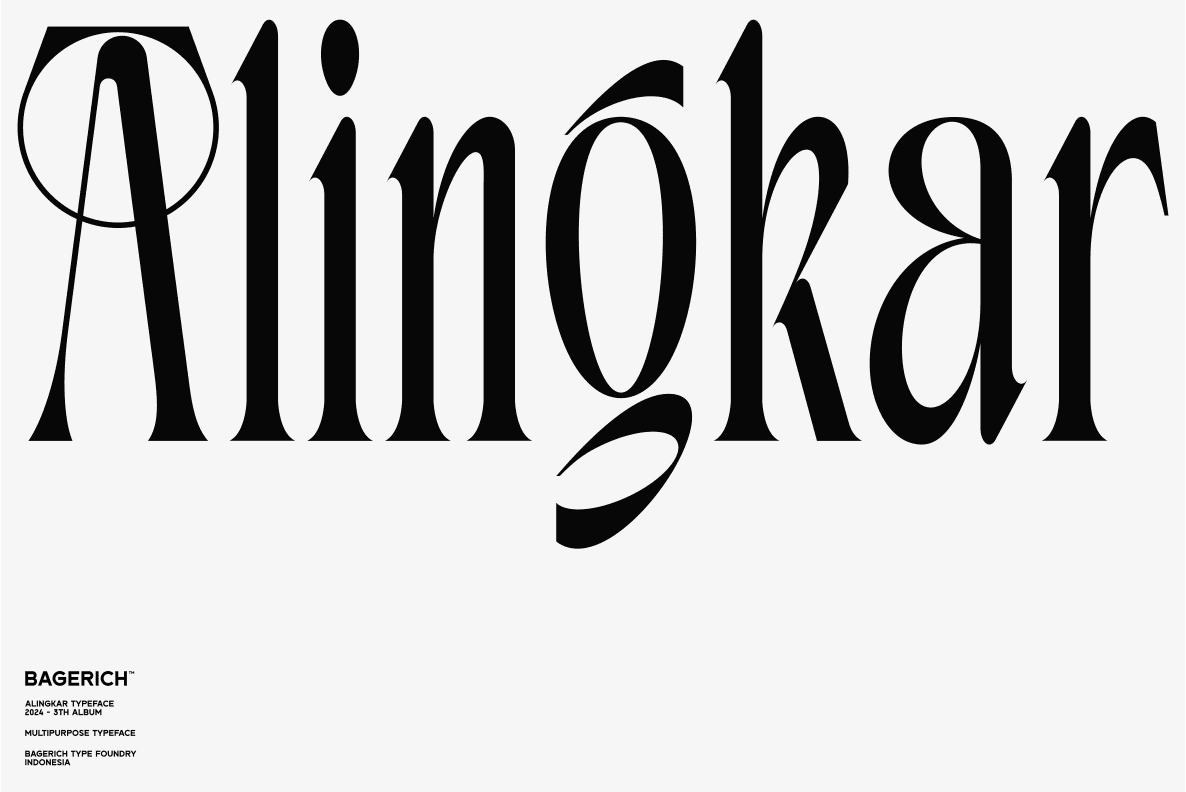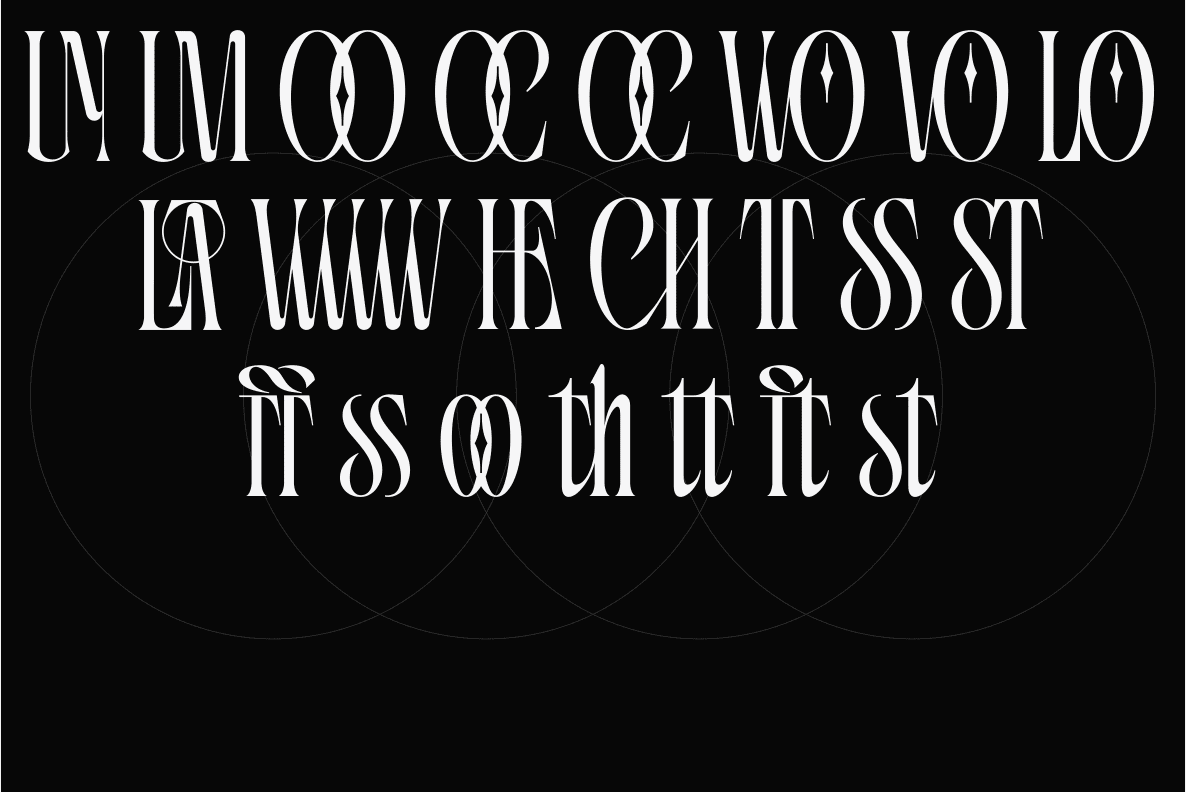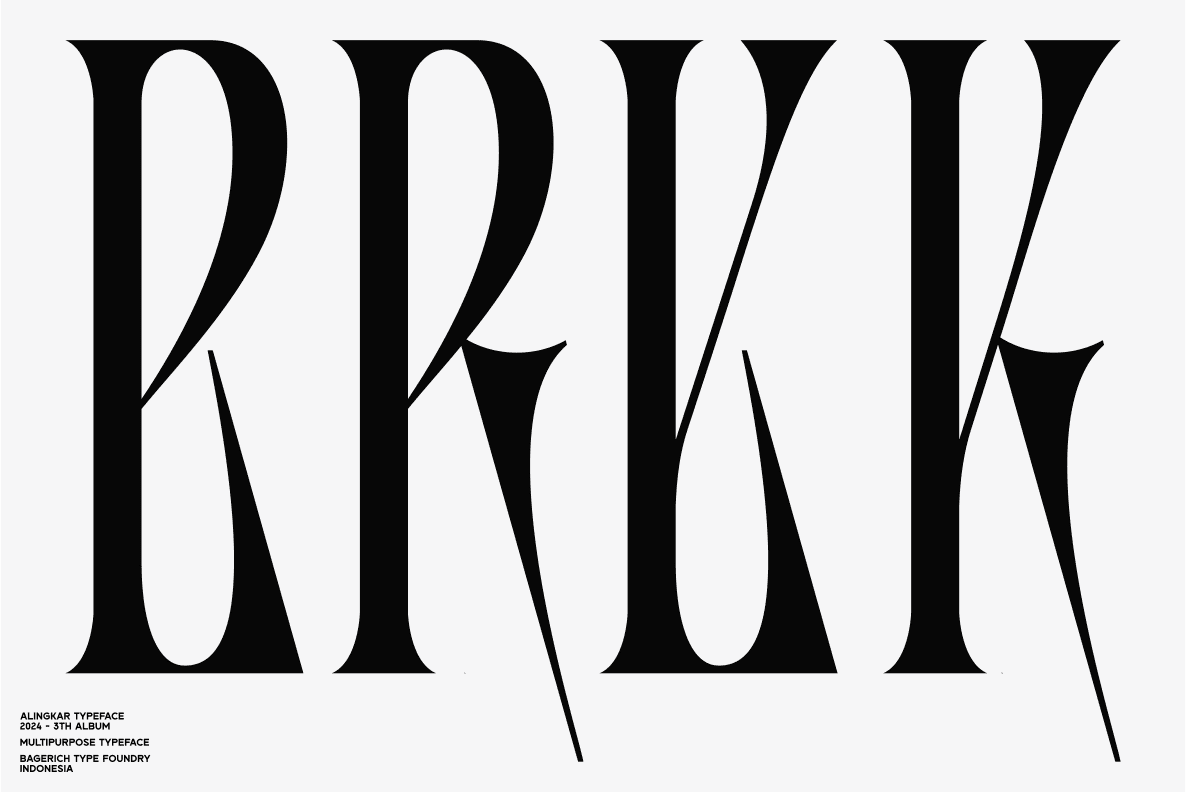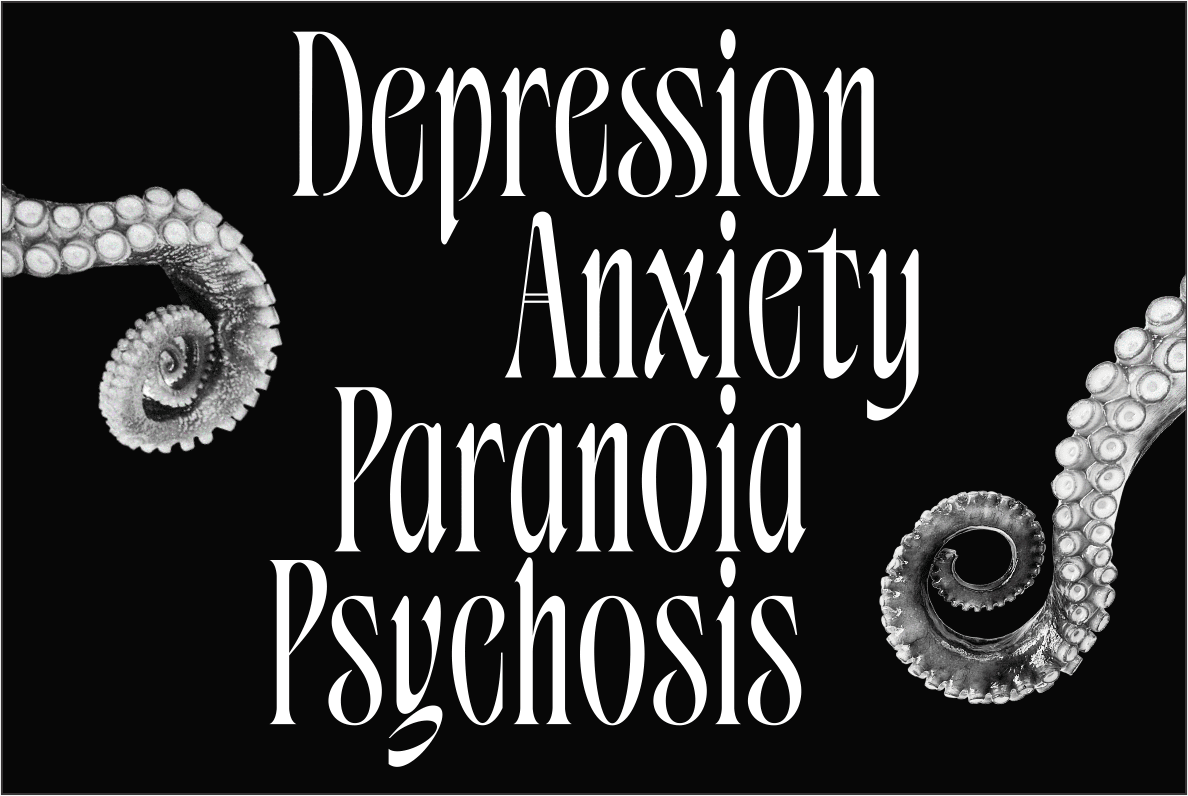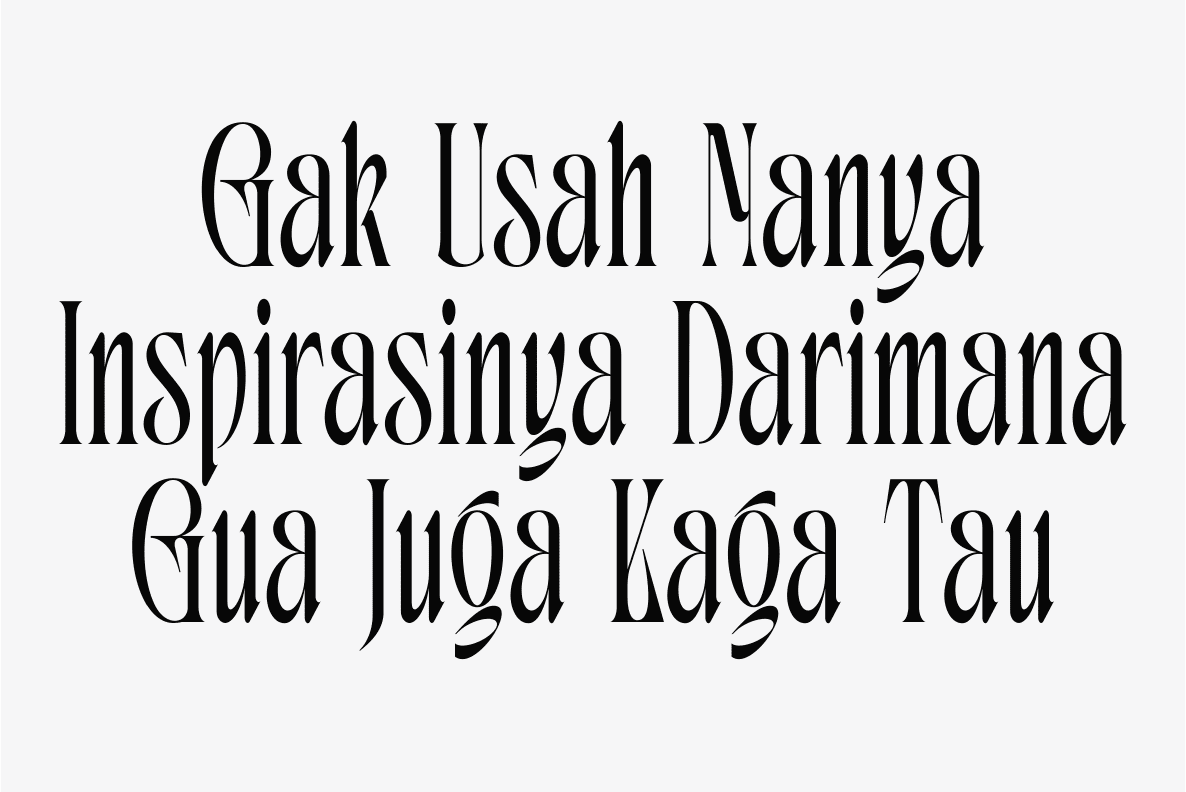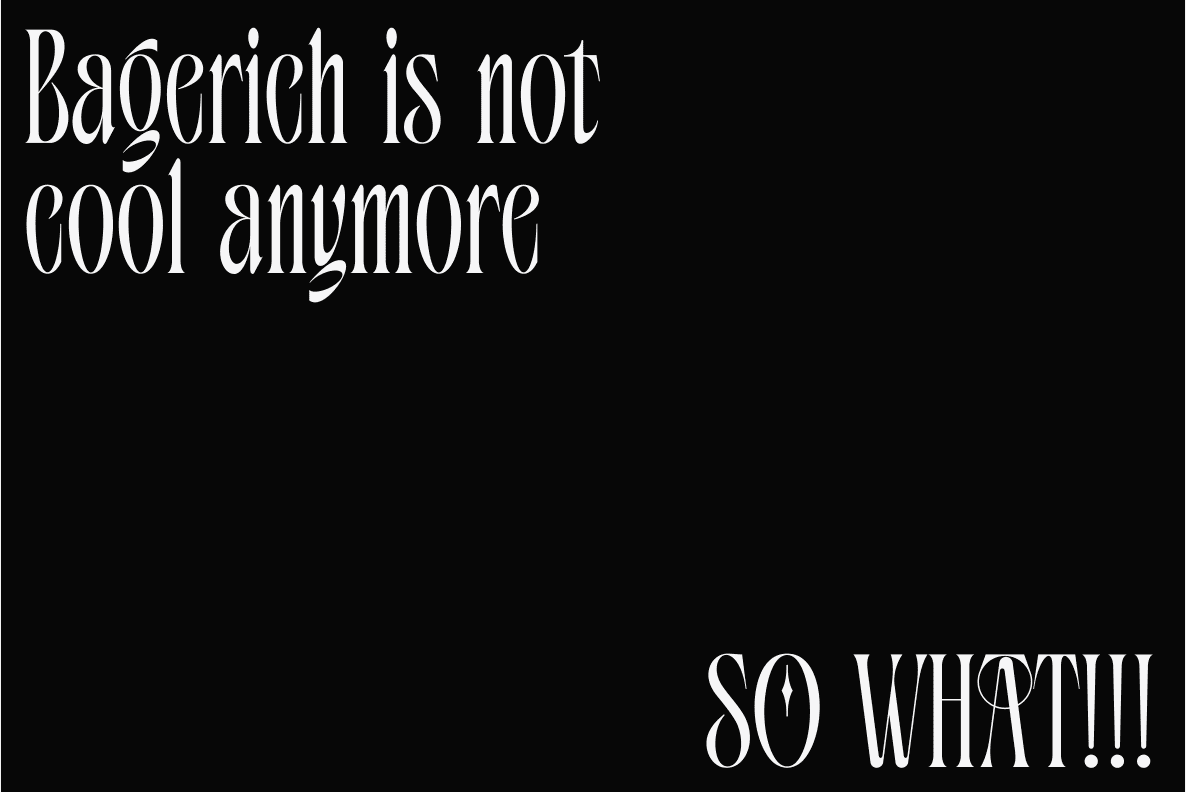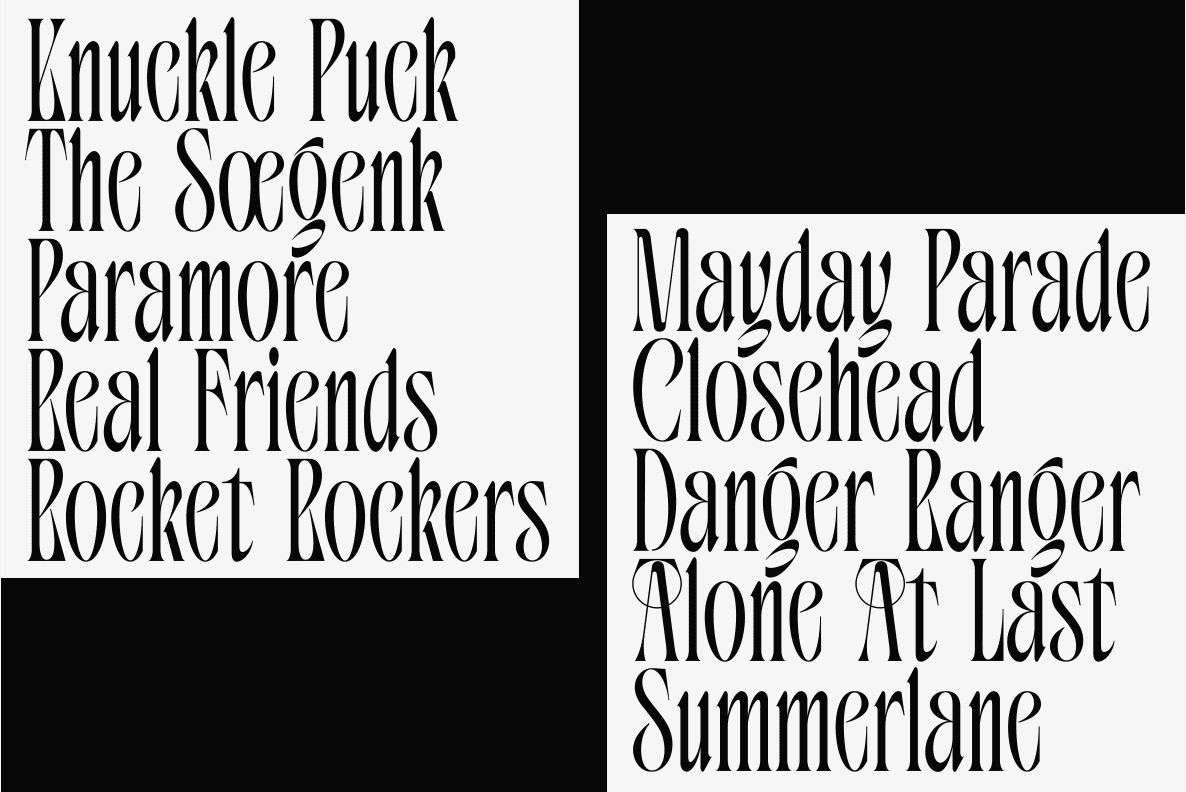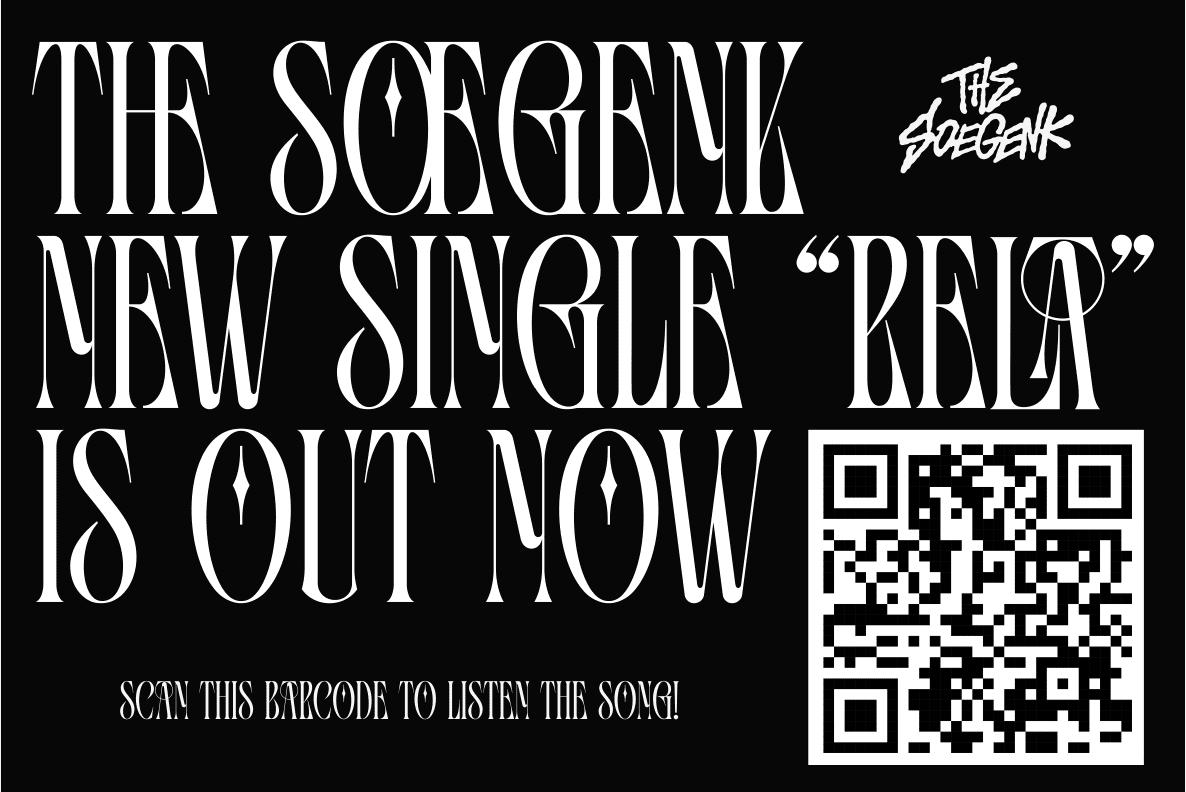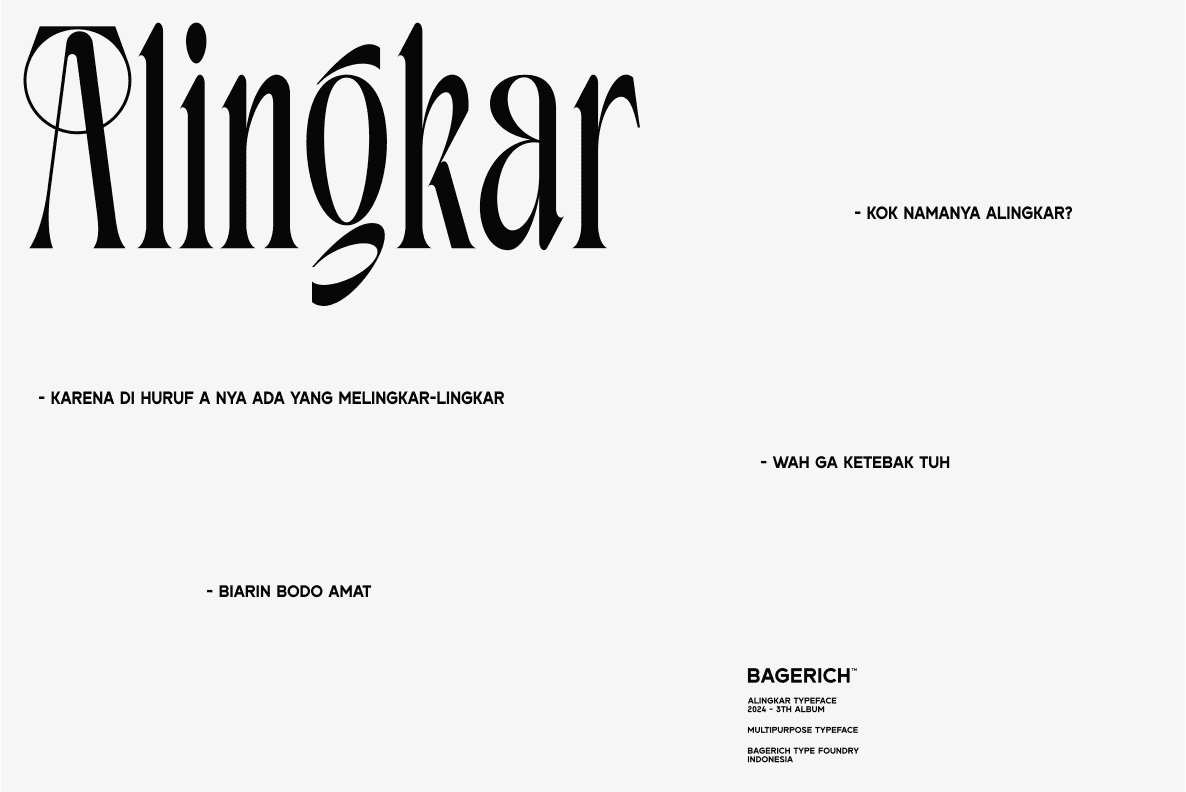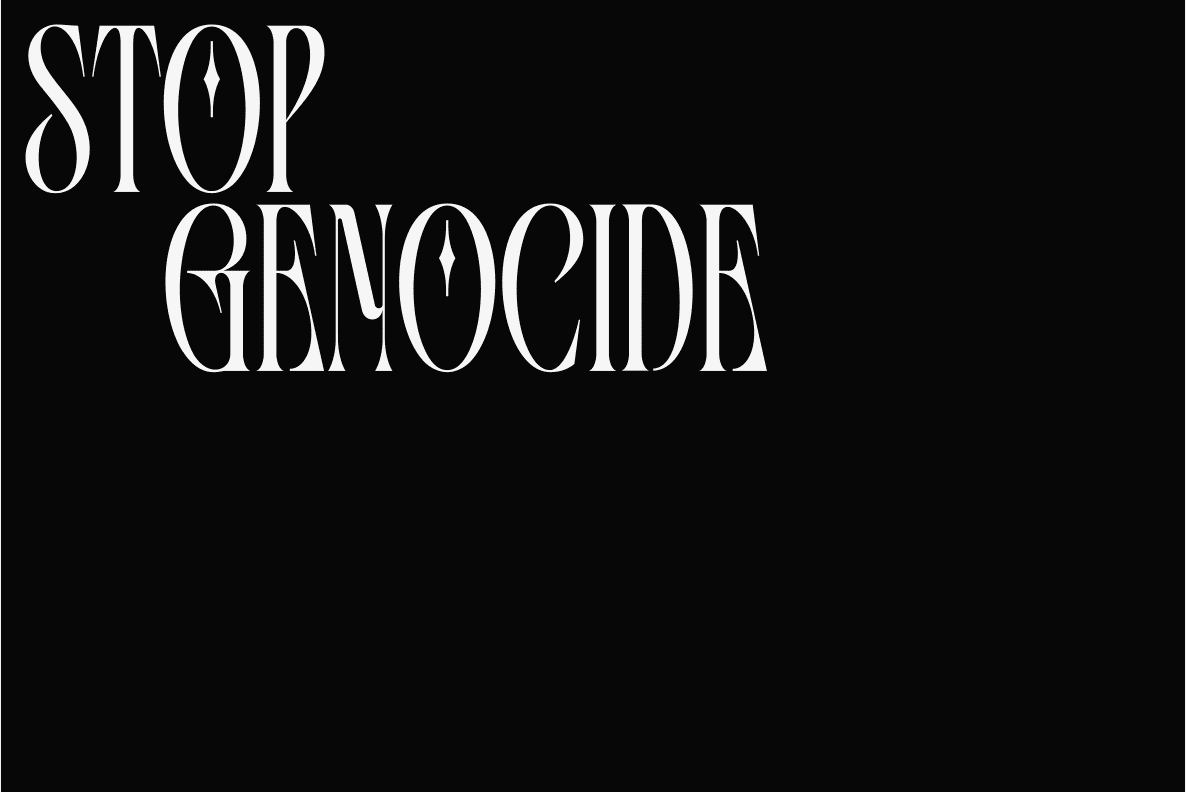
Alingkar is high contrast serif font features a mixed modern-classic design. Alingkar support multilingual languages, numbers, punctuation and alternative-ligatures.Â
Create unique & beautiful logotype, use it as an elegant solution for your next magazine layout, or choose Alingkar for any graphics that require a sleek look with a elegant flair.